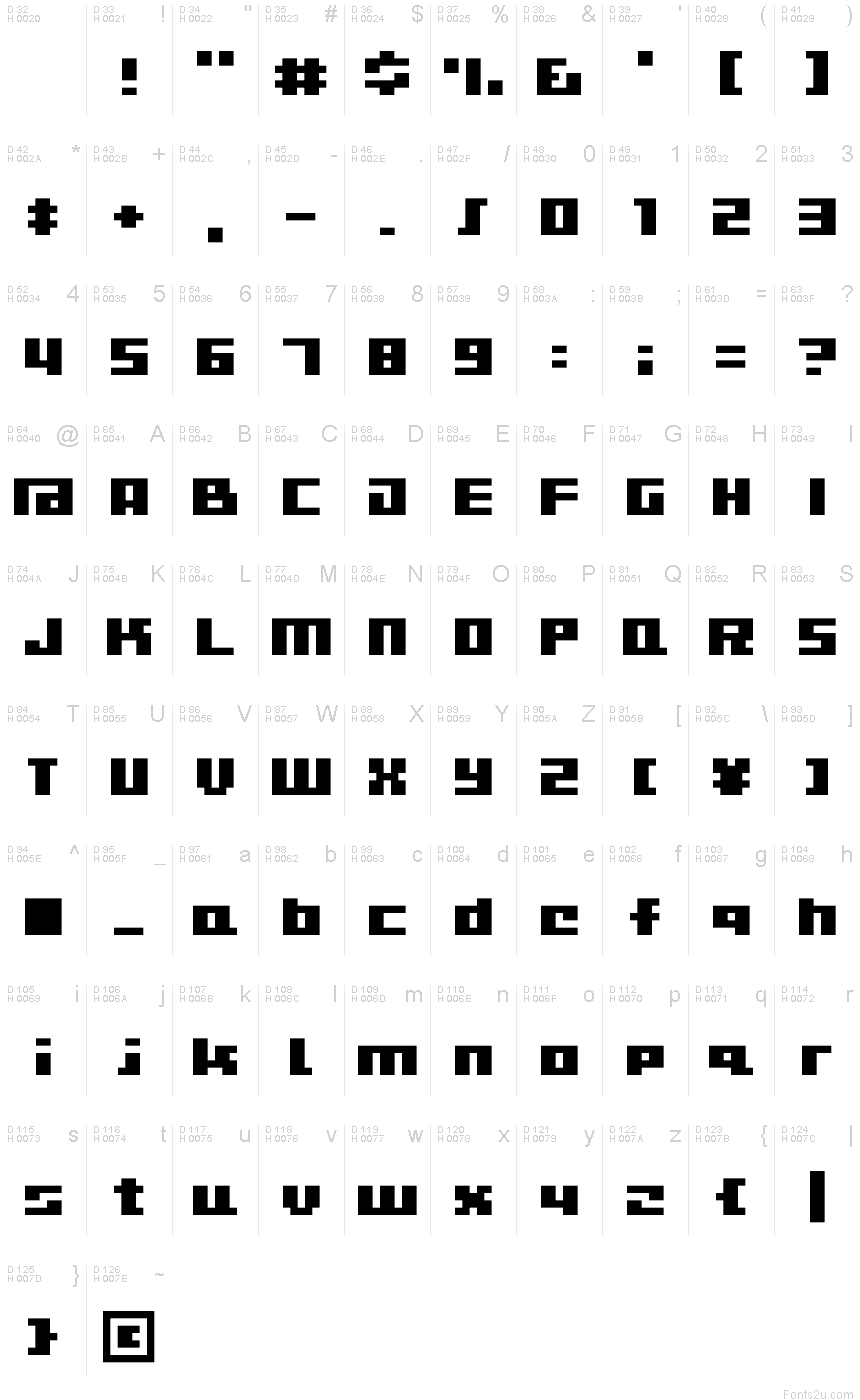
D3 CuteBitMapism TypeA
D3 Cute Bit Mapism Type A font by D3 is a free pixelated bitmap font with a tight, blocky rhythm that feels like it’s been lifted straight from a tiny LED screen. Each character stacks into a neat vertical column, creating a quirky, maze-like texture that reads clearly even at very small sizes but still looks charmingly chunky when scaled up.
Using D3 Cute Bit Mapism Type A, this free font shines on retro game titles, pixel-art logos, stream overlays, app icons, stickers, and techy social graphics. Its consistent grid and snug spacing make text feel compact yet legible, especially on dark backgrounds. For longer copy or UI labels, pair this typeface with a simple rounded sans-serif set smaller to keep the bold pixel blocks as the hero.